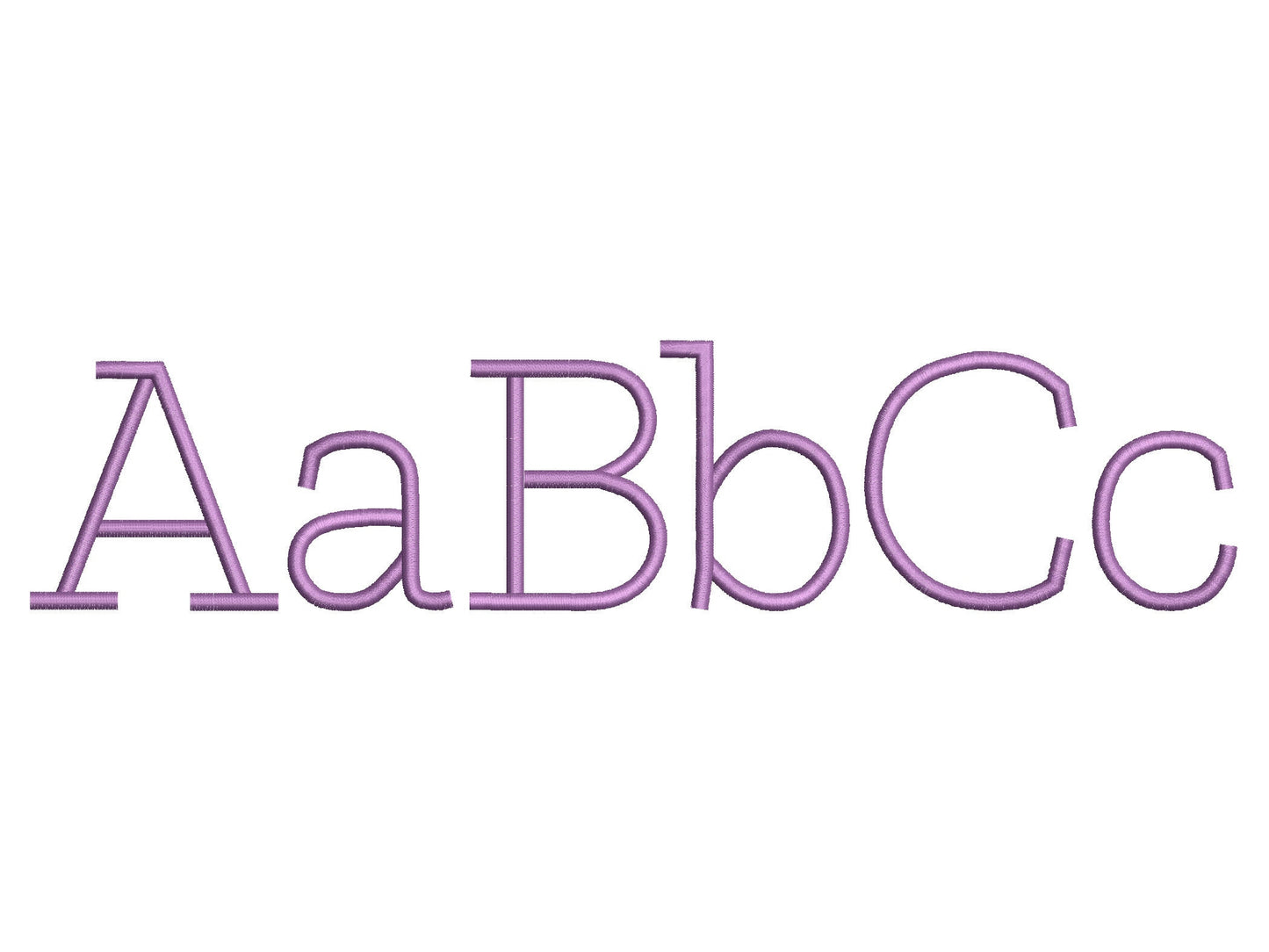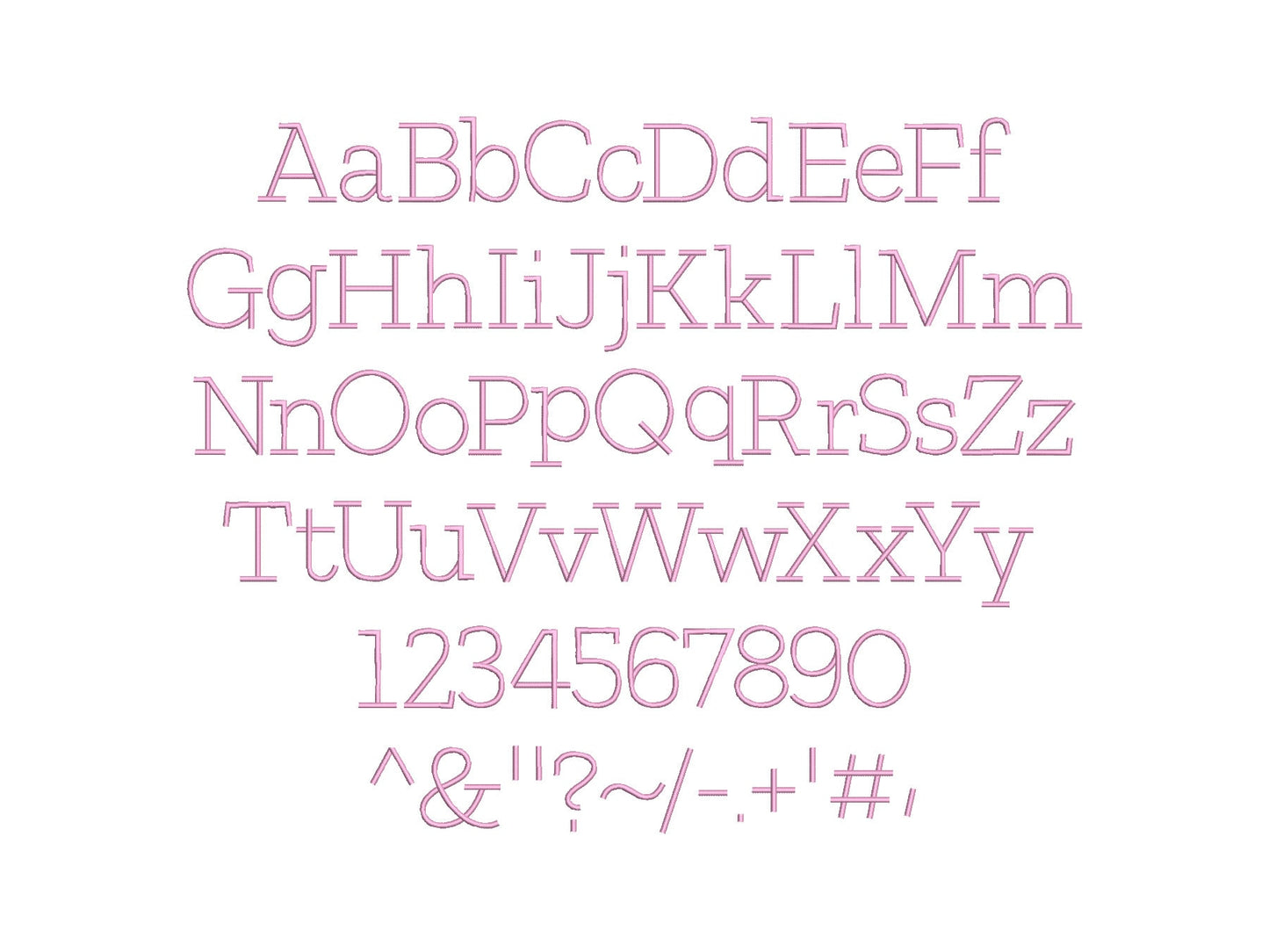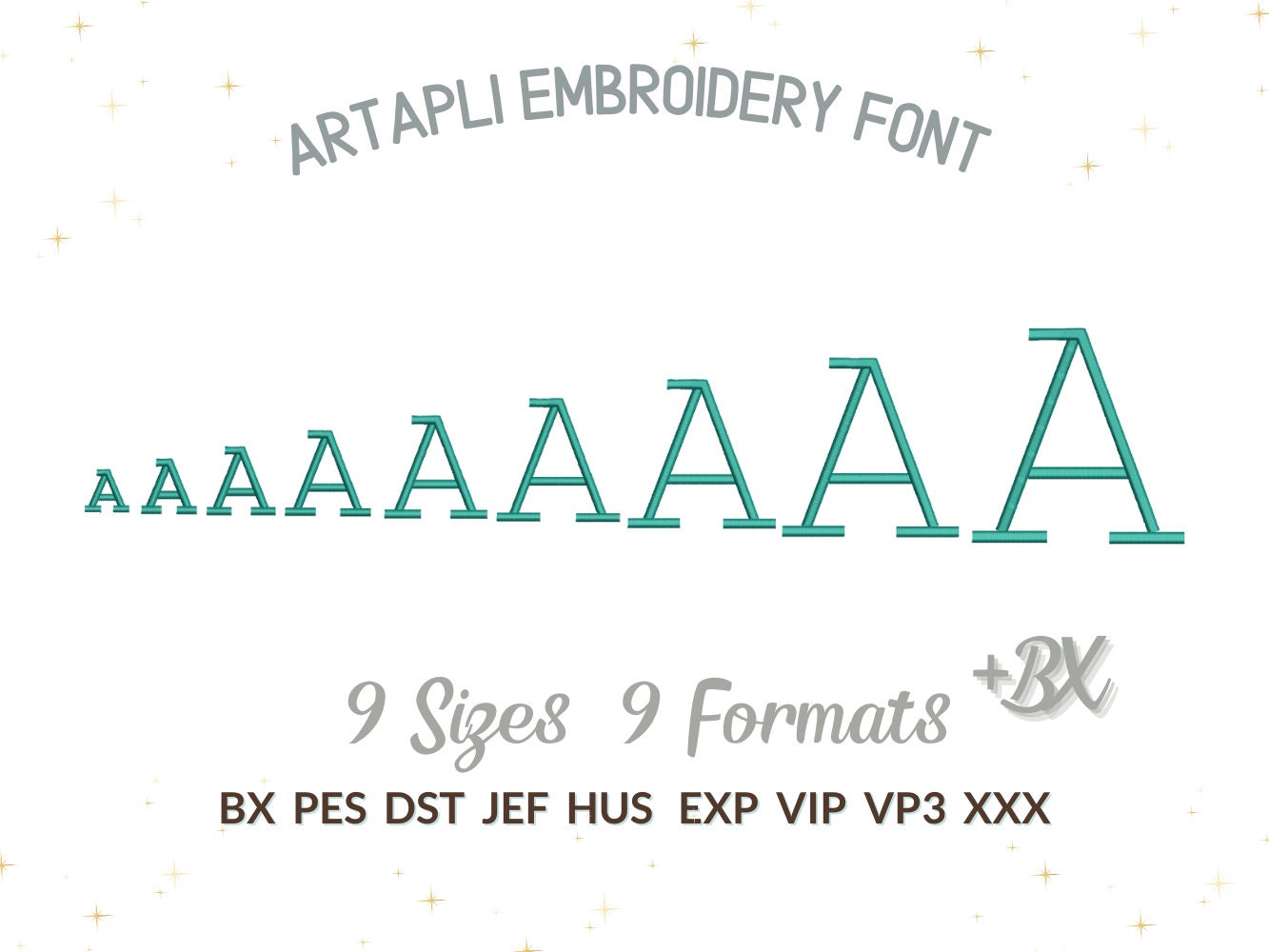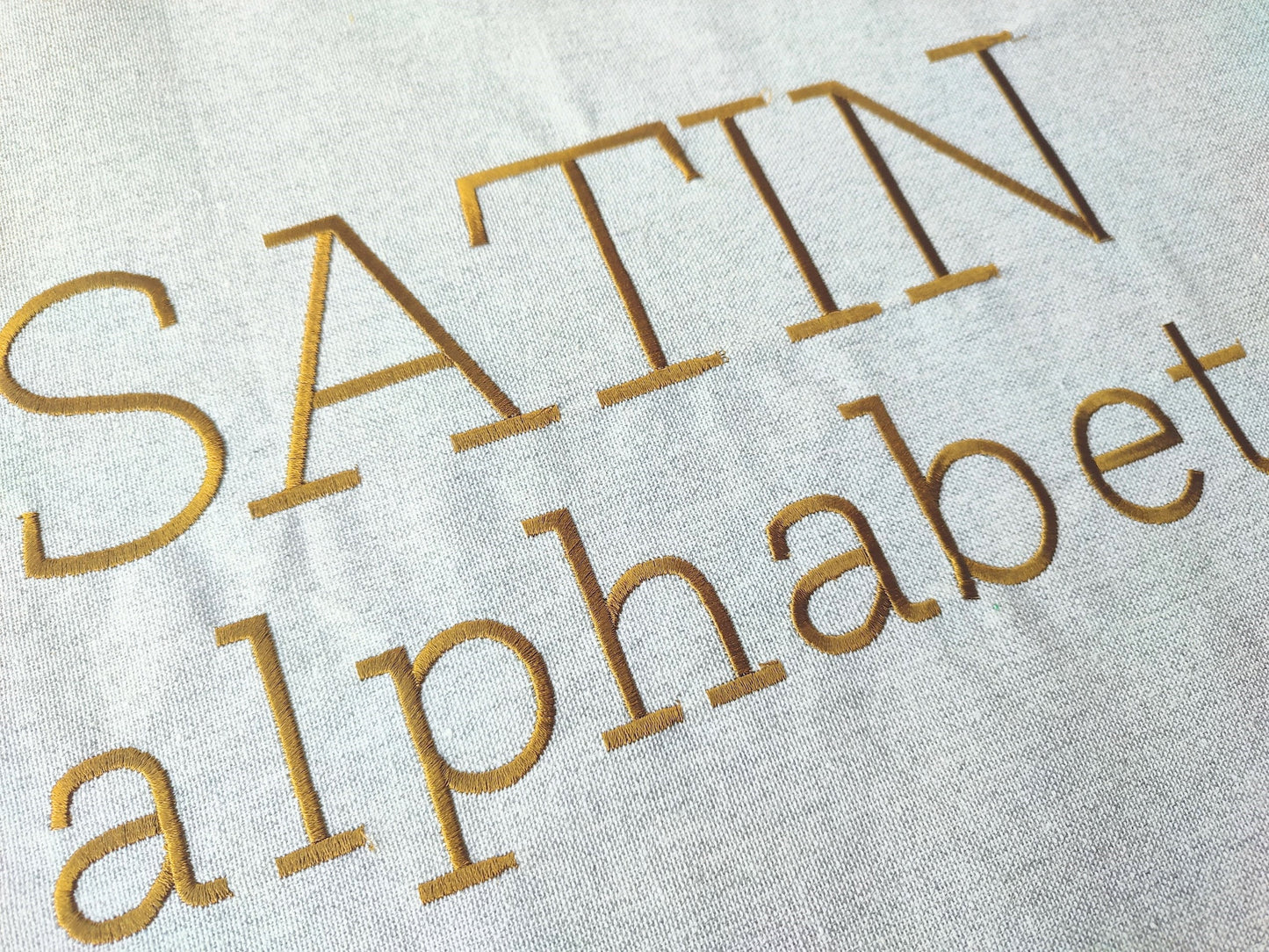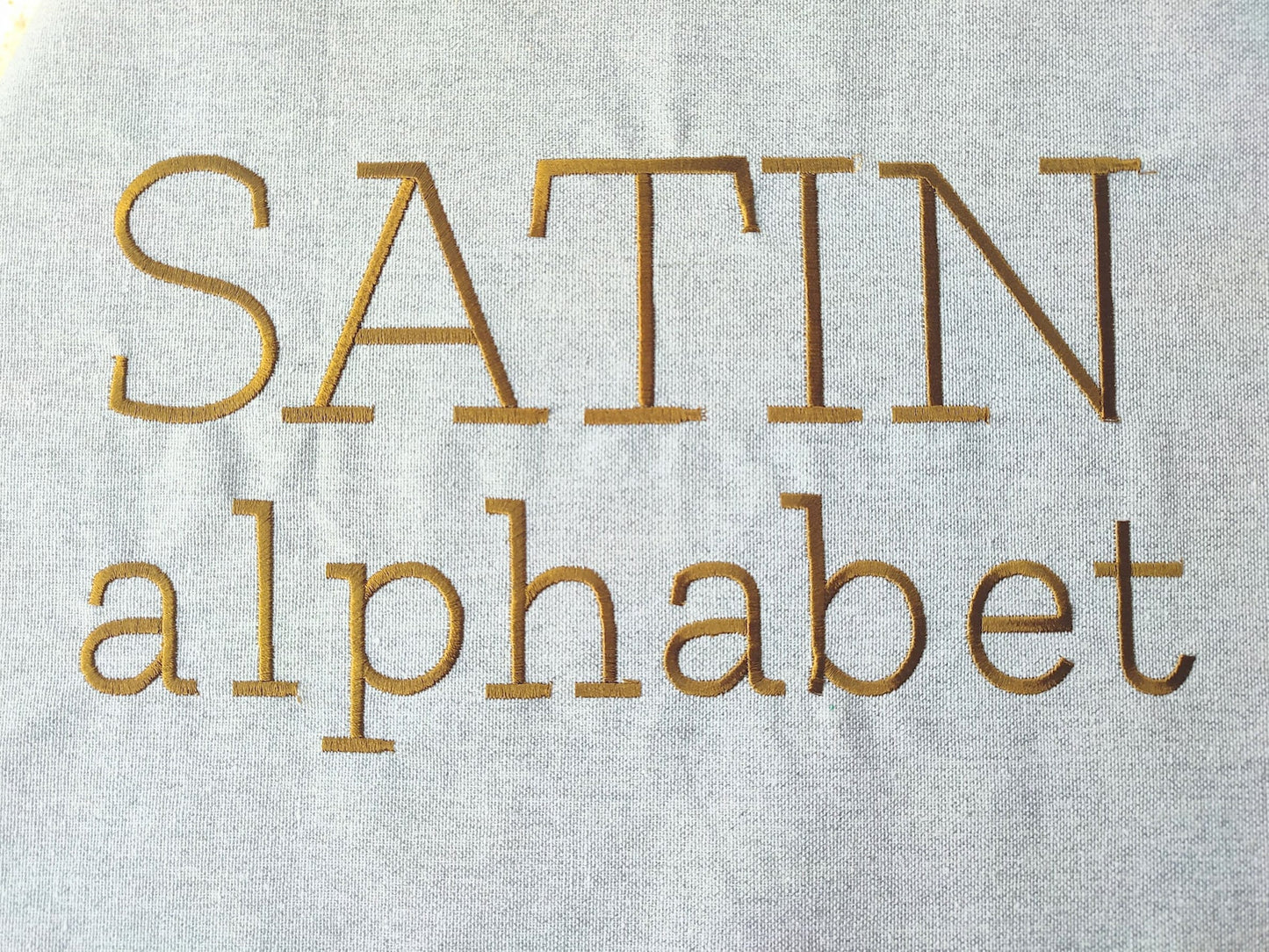
Or click to open the linkA classic block font in smooth satin stitch. Clean and neat for monograms, names, labels, towels and gifts.
Uppercase and lowercase letters, numbers 0 to 9 and lots of punctuation and signs, in nine sizes: 0.8, 1.1, 1.4, 1.7, 2, 2.5, 3, 3.6 and 4.4 inches.